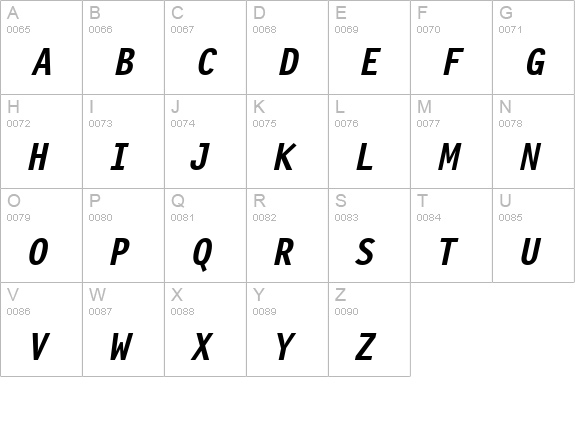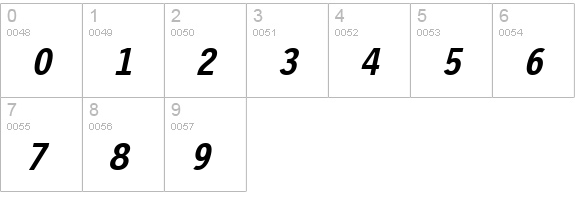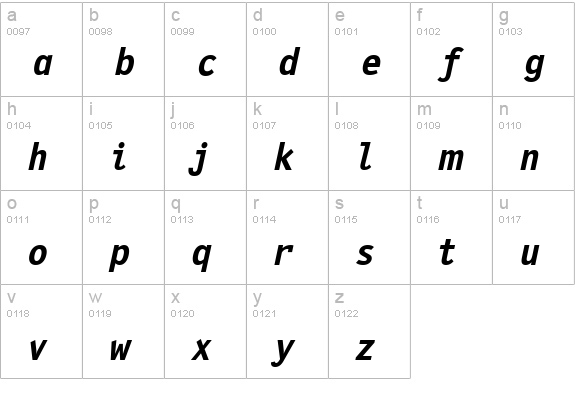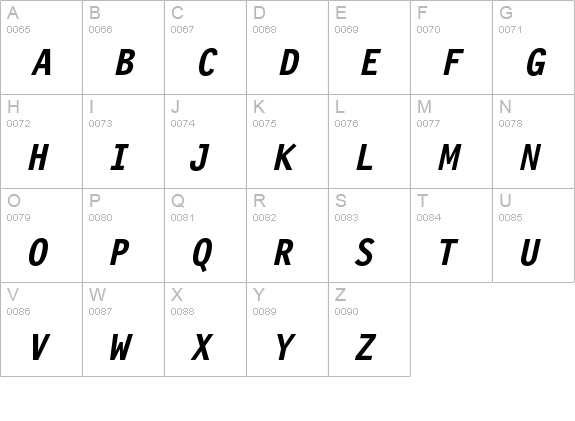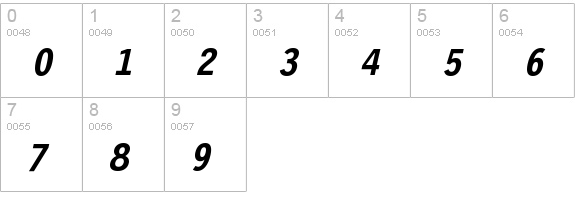
PFLetterGothicThree BoldItalic is a visually striking and modern font that exudes confidence and sophistication. Its bold and italic design adds a touch of flair to any project, making it perfect for eye-catching headlines, titles, and branding materials. The sharp lines and unique style of PFLetterGothicThree BoldItalic make it a standout choice for design projects that require a touch of edginess. The best part? PFLetterGothicThree BoldItalic is available for free download at FontsMarket.com. This means you can easily access this stylish font and incorporate it into your designs without any cost. Whether you're working on a professional project or a personal endeavor, PFLetterGothicThree BoldItalic is sure to make a bold statement and elevate your work to the next level. Download this font today and unleash your creativity with its powerful and modern aesthetic.